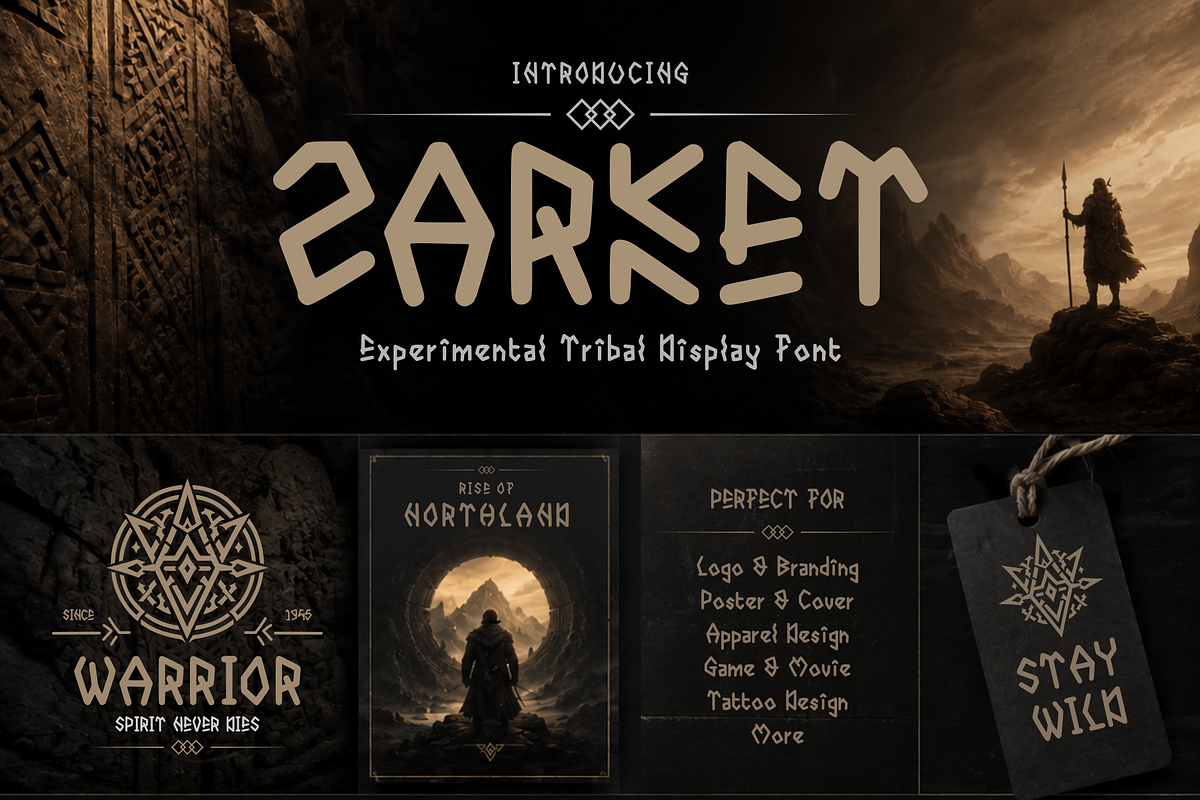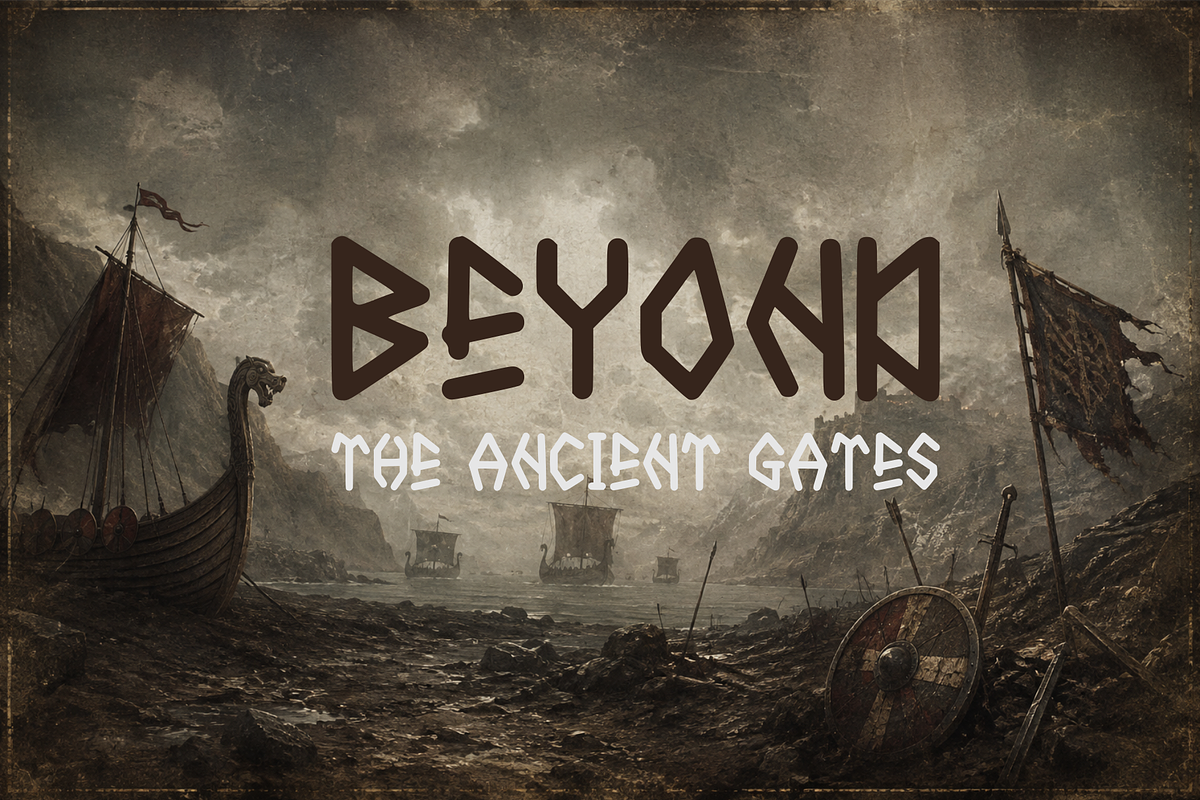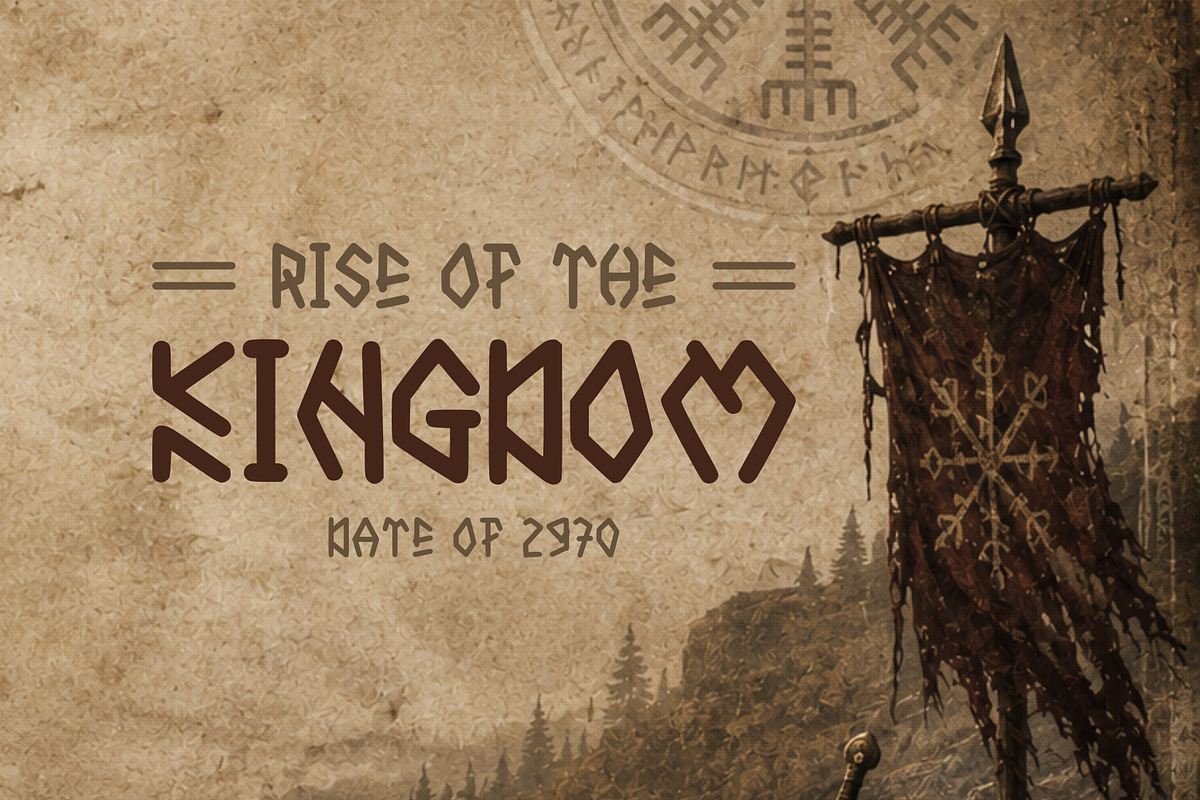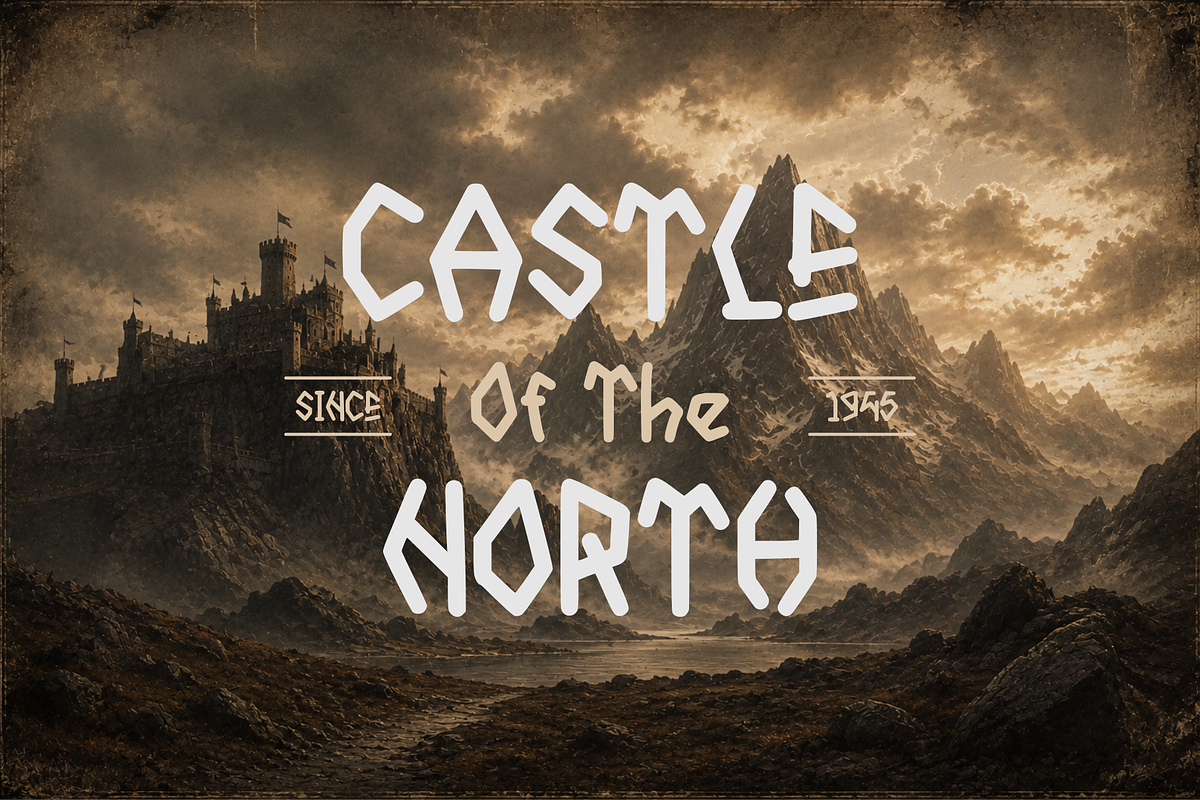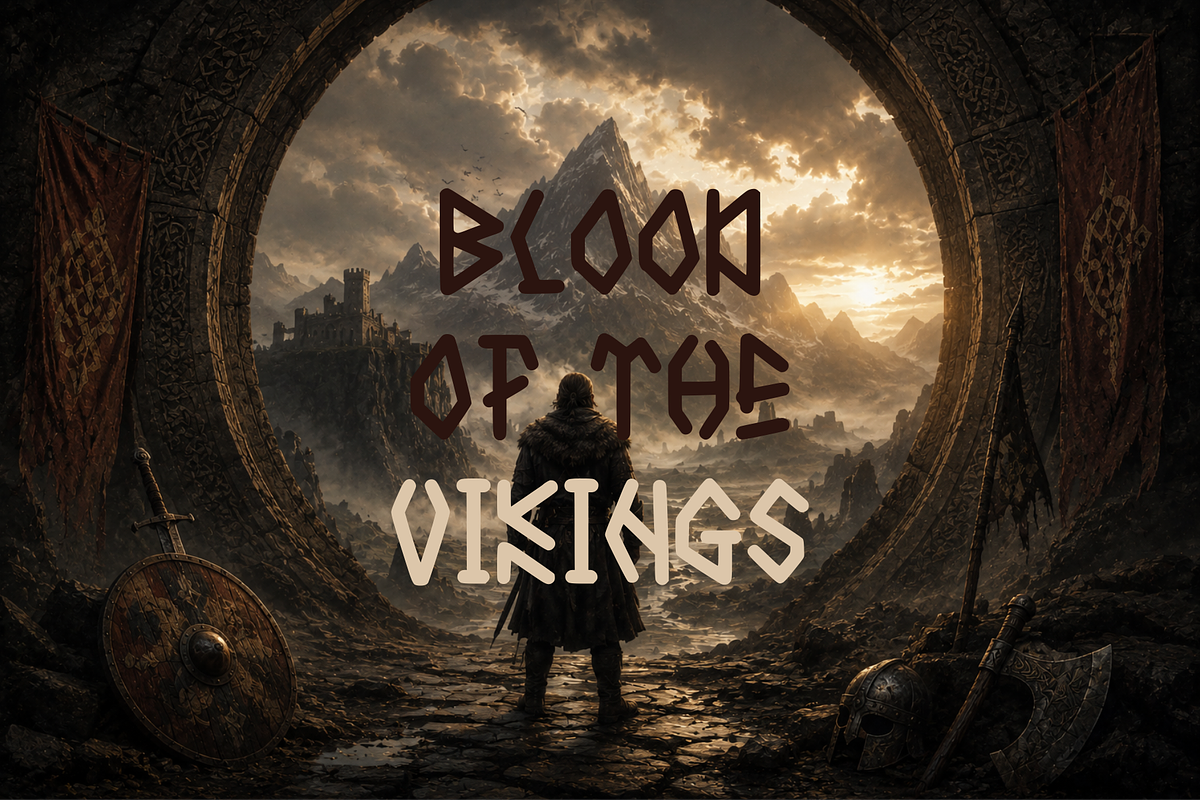
ZARKET — Experimental Tribal Display
ZARKET — Experimental Tribal Display Font
ZARKET is an experimental tribal display font inspired by ancient warrior cultures, Nordic mythology, carved symbols, and rugged historical aesthetics. Its distinctive letterforms feature irregular geometric structures, sharp cuts, and handcrafted details that create a raw, primitive, and powerful visual character.
Designed to command attention, ZARKET works especially well for logos, branding, posters, album covers, apparel, gaming graphics, movie titles, tattoo designs, badges, and other bold display projects.
The unconventional shapes give ZARKET an authentic handcrafted feeling while maintaining enough structure to remain visually impactful in large-scale typography. Its tribal and warrior-inspired personality makes it particularly suitable for projects that need a mysterious, ancient, adventurous, rebellious, or battle-ready atmosphere.
Logo & Branding
Poster & Cover Design
Apparel & Merchandise
Game & Movie Titles
Viking & Warrior Themes
Tattoo Design
Adventure & Fantasy Projects
Badges & Emblems
Album & Music Artwork
Historical & Mythological Designs
ZARKET is made for designers who want typography that feels ancient, wild, experimental, and unmistakably powerful.